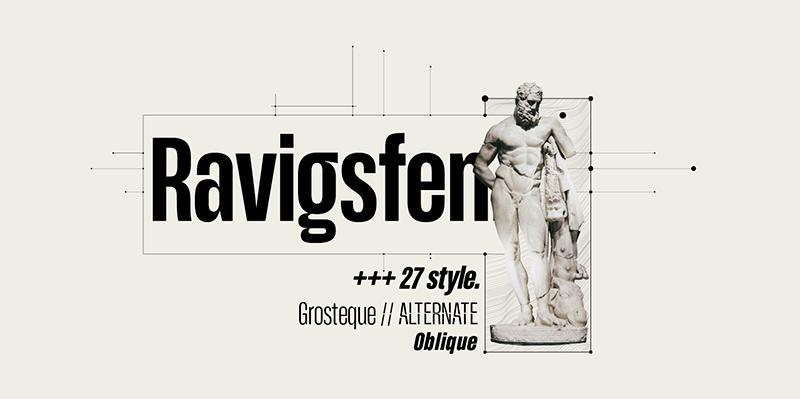
In a design landscape dominated by modern advancements, ZT Ravigsfen emerges as a stunning turning point. A work of sans-serif grotesque font that celebrates the style and audacity of classic sci-fi, this font takes users on a journey through time. ZT Ravigsfen Key Features: 9 Remarkable Weights 3 Styles (Grotesque, Oblique, & Alternate) Captivating Alternative Style Distinct Aura in Every Thickness Rich with 525 Glyph Free Updates Note of the author To download the full font family please visit our website: https://zelowtype.gumroad.com/l/ztravigsfen?layout=profile Donation are very appreciated. Paypal account for donation : https://paypal.me/khaiuns CONTACT US: have a question?: selowtype@gmail.com |